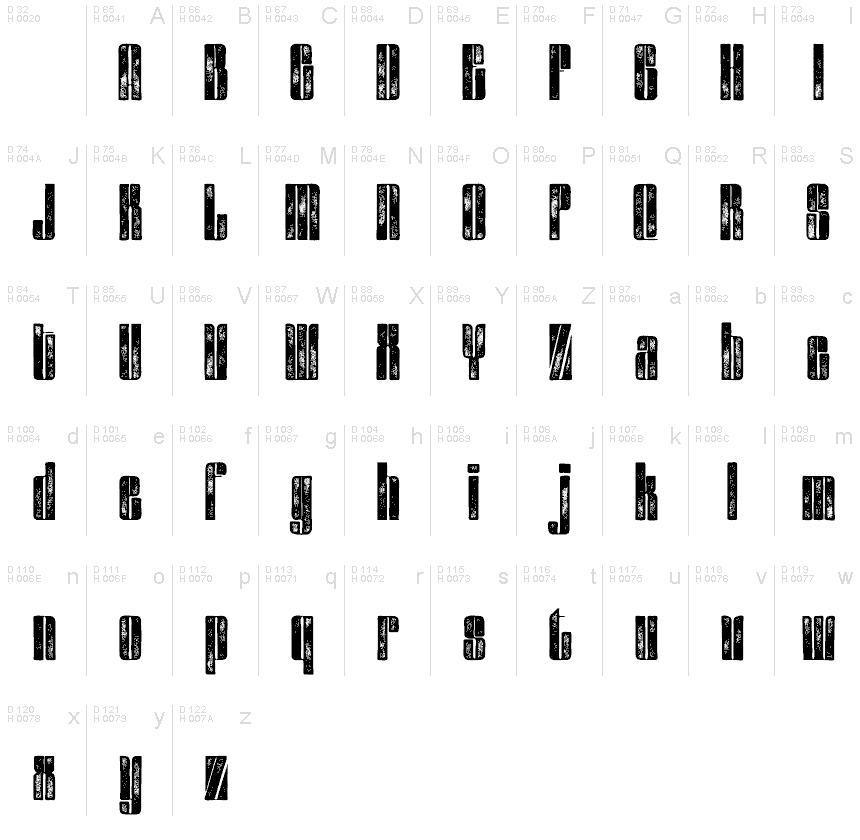
Sazzle Vintage Demo Stamp
Sazzle Vintage Stamp font from Craft Supply Co captivates users with its retro charm and bold presence. The condensed display typeface comes with an eroded texture to simulate vintage printing in a subtle but clear form. Boasting an impactful and nostalgic style, the visual delivers an old-stamp-like sensation which makes it perfect for branding and packaging with a twist.
The free display font allows artists to craft unique work in posters, signage, cards, invitations, books, movie covers (vintage themes), apparel items (t-shirts mostly), album covers other product designs. Use it also for social media posts or web page headers to captivate and entertain your audience!